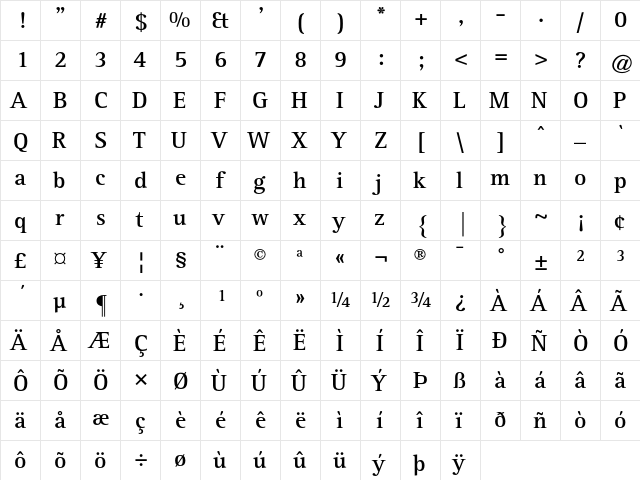
ATRotisSerif Regular
Design Context for ATRotisSerif Typeface
ATRotisSerif carries the refined structure of traditional serif typography, with bracketed terminals and considered proportions that communicate credibility and craft.
Pro Tip: Use ATRotisSerif for editorial body copy and considered headline work. Pair with a neutral sans for UI elements or captions to create a classic hierarchy.